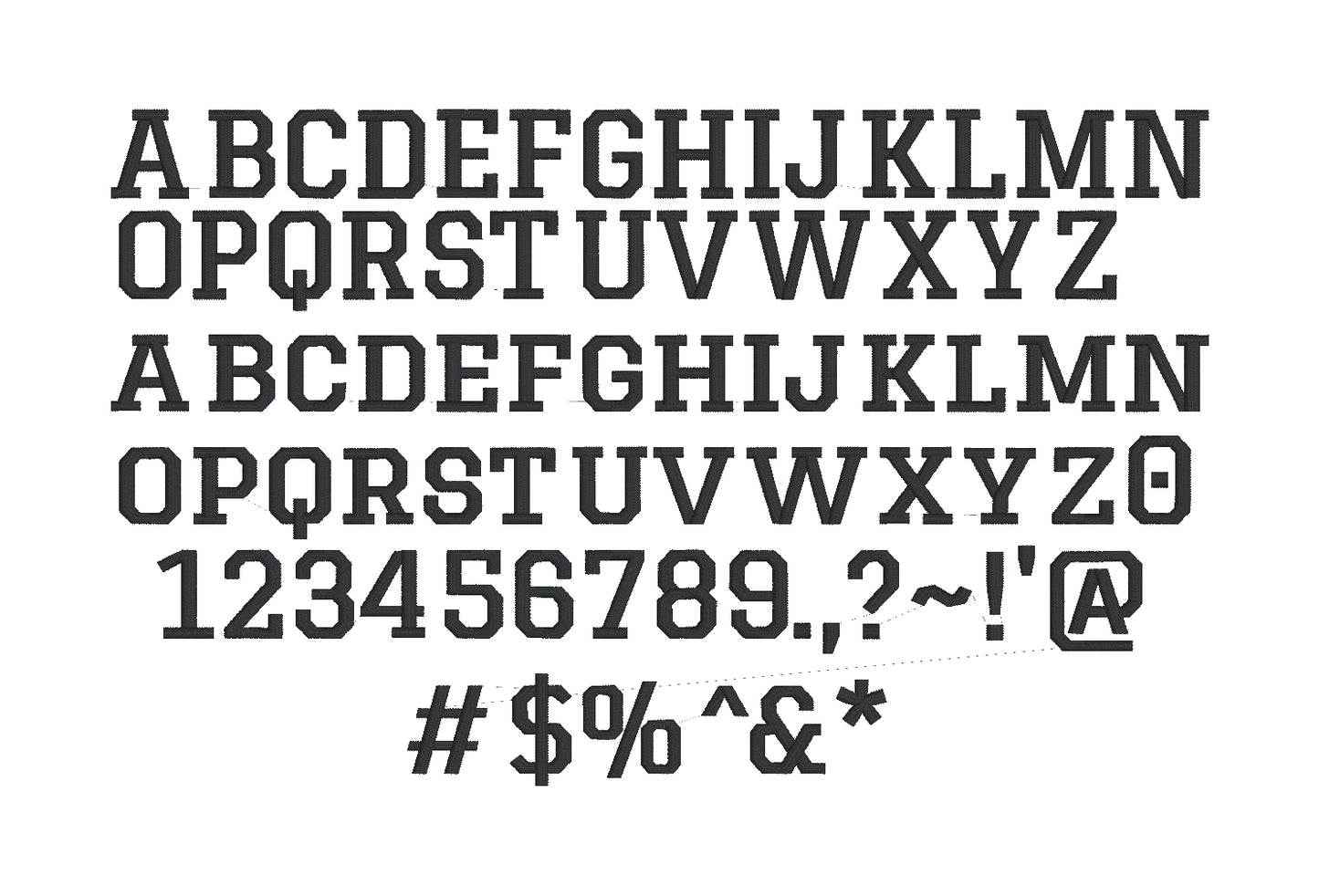
Sport Native Bx Embroidery Font | Satin Stitch | 0.25' - 4' | No Ready to stitch Files
Sport Native Bx is a versatile embroidery font designed for digitizing custom projects. This satin stitch font offers a resizable from 0.25" to 4", giving you flexibility for everything from small details to bold statements. Perfect for personalizing apparel, accessories, and home décor items, Sport Native Bx delivers clean, professional lettering with smooth satin stitching. The font works well on various fabrics and is ideal for monogramming, team wear, and custom embroidery designs. Please note: This is a font file only. You will need Embrilliance Express free embroidery digitizing software to convert letters into ready-to-stitch machine files.